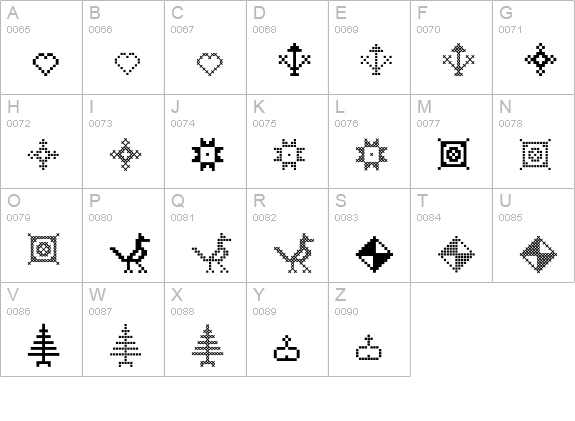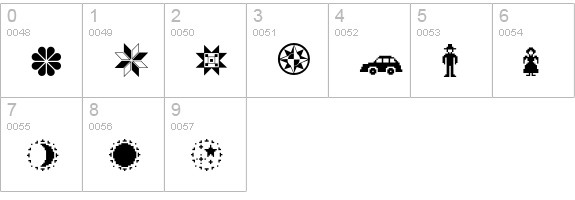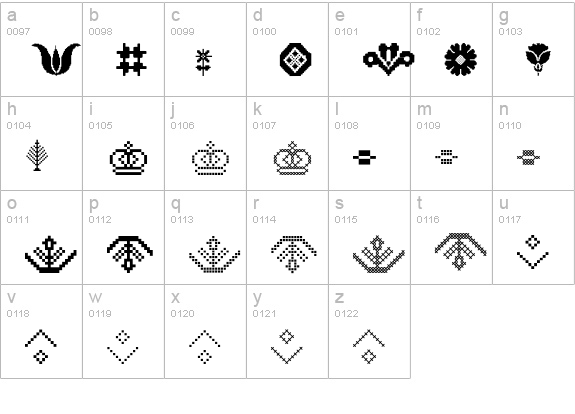
P22FolkArt-Extras Font Details
P22FolkArt-Extras font is a captivating and charming typeface that adds a touch of rustic elegance to any design project. Inspired by the rich heritage of American folk art, this font is a true homage to the craftsmanship of the past. With its intricate details and hand-drawn feel, P22FolkArt-Extras font brings a sense of warmth and authenticity to your designs. It is perfect for creating eye-catching headlines, decorative elements, and unique illustrations that evoke a sense of nostalgia and tradition. This font includes a wide range of extra glyphs, ornaments, and symbols that add an extra layer of creativity and versatility to your work. From delicate borders and frames to whimsical icons and embellishments, P22FolkArt-Extras font offers endless possibilities for adding that special finishing touch to your designs. Best of all, P22FolkArt-Extras font is available for free download at FontsMarket.com. Whether you are a professional designer or a creative enthusiast, this font is a valuable addition to your collection. Its freely available nature allows you to explore its endless potential without any restrictions. So why wait? Discover the beauty of P22FolkArt-Extras font today and let your creativity soar. Download it for free at FontsMarket.com and unlock a world of possibilities for your next design project.